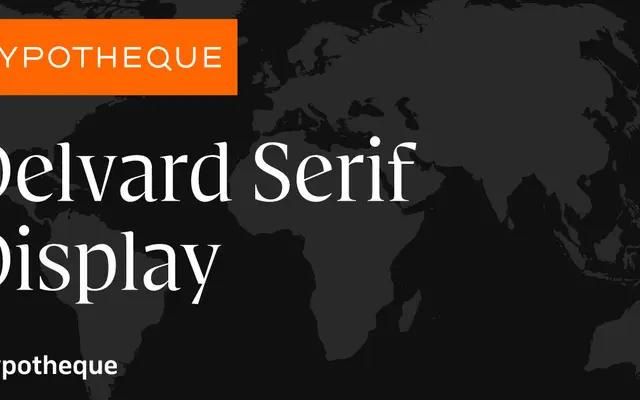
Delvard Serif Display
Typotheque
Delvard Serif Display specimen from Typotheque
The display cut of Typotheque's Delvard Serif system, offering four weights with italics optimised for large-scale headline setting.
Part of a three-tier optical size system alongside Subhead and Text cuts, Delvard Serif Display is designed for high-contrast performance at headline sizes. Four weights run from Regular to Bold, each with a matching italic, giving designers a consistent voice across different scales. A variable version is available for the Text cut, and glyph coverage extends across the Latin script.
The typeface is explicitly positioned as the display optical size within the Delvard Serif system, with a companion Text and Subhead cut, indicating high-contrast proportions suited to large-scale setting.